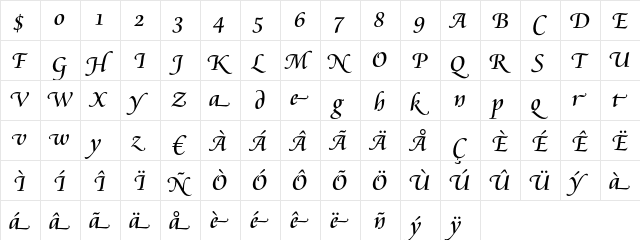
Cataneo Swash
Design Context for Cataneo Typeface
Cataneo flows with the natural rhythm of handwritten lettering, making it ideal for designs that call for warmth and personal expression.
Font Pairing: Combine Cataneo with a simple geometric sans for maximum contrast — the tension between flowing curves and clean structure is a classic typographic pairing.
Pro Tip: Pair Cataneo with a clean sans-serif for supporting text. The contrast between fluid script and geometric structure creates an elegant typographic hierarchy.